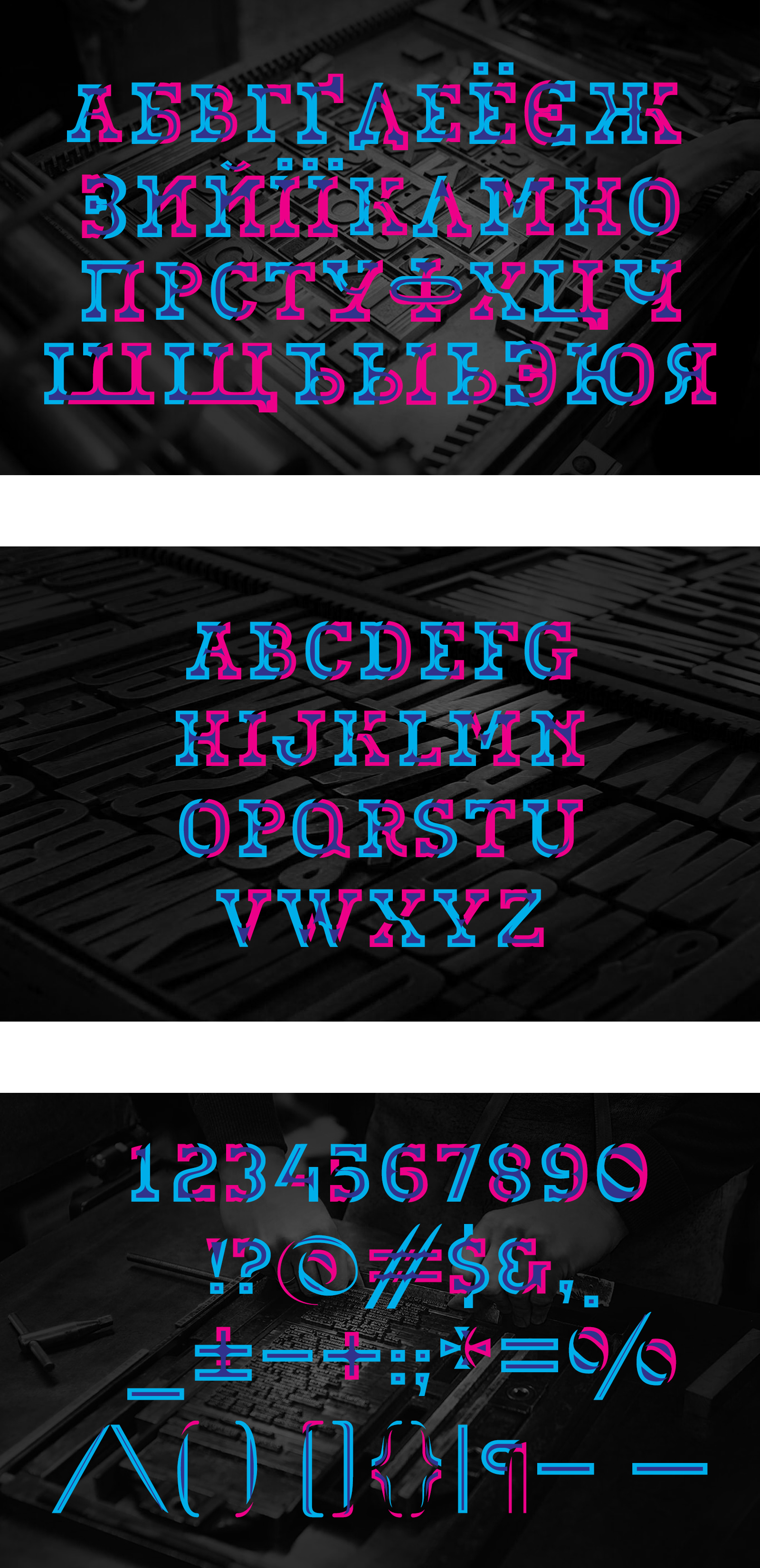
Creation of a cyrillic based on the NT Bixa-Color font
As in the original font, the cyrillic only supports the written letters.
Suitable for creating logos, posters, various unusual inscriptions!